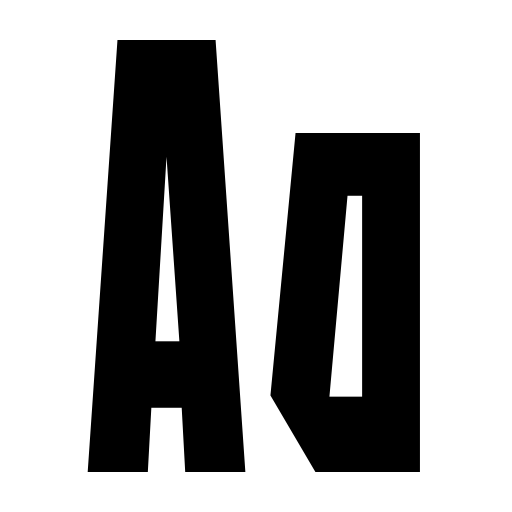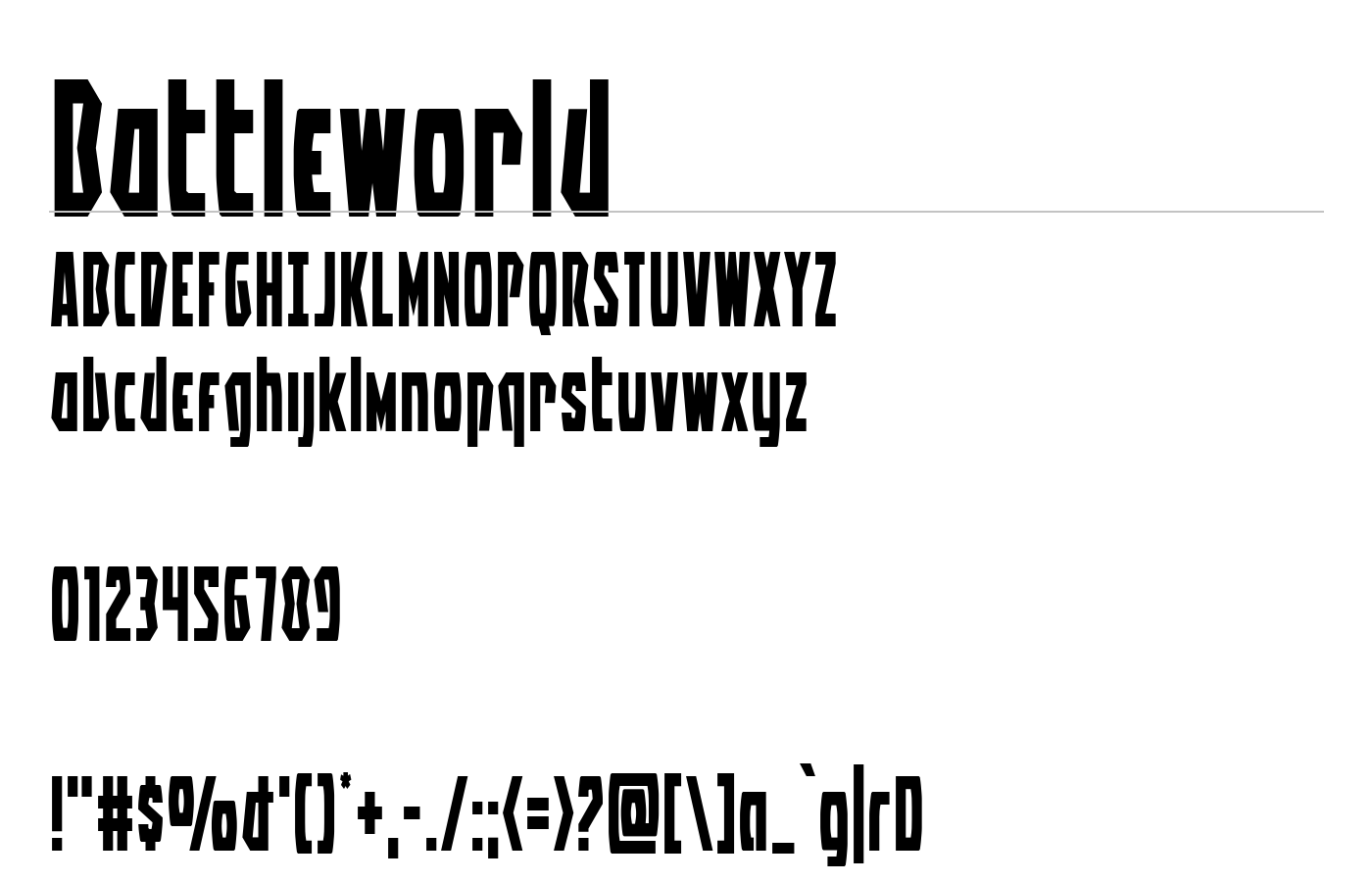
Battleworld is a bold, condensed sans serif font with a strong, modern edge conveyed through sharp, geometric letterforms and uniform stroke weight. Its tall x-height and all-caps feel, combined with unique angular details, give it a powerful and dynamic personality ideal for impactful headlines, logos, and designs that aim to convey strength and boldness. This font works especially well in branding, posters, and editorial contexts where a striking, futuristic look is desired.
Battleworld Font
About Battleworld Font